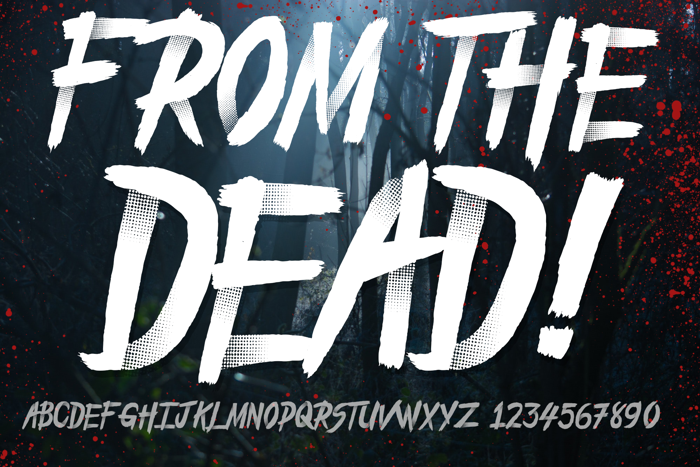
From the Dead Font
FROM THE DEAD
- Stroke brush inspired font perfect on your school projects, covers, etc.
- Lifestyle modern theme font for branding, website, mobile app etc.